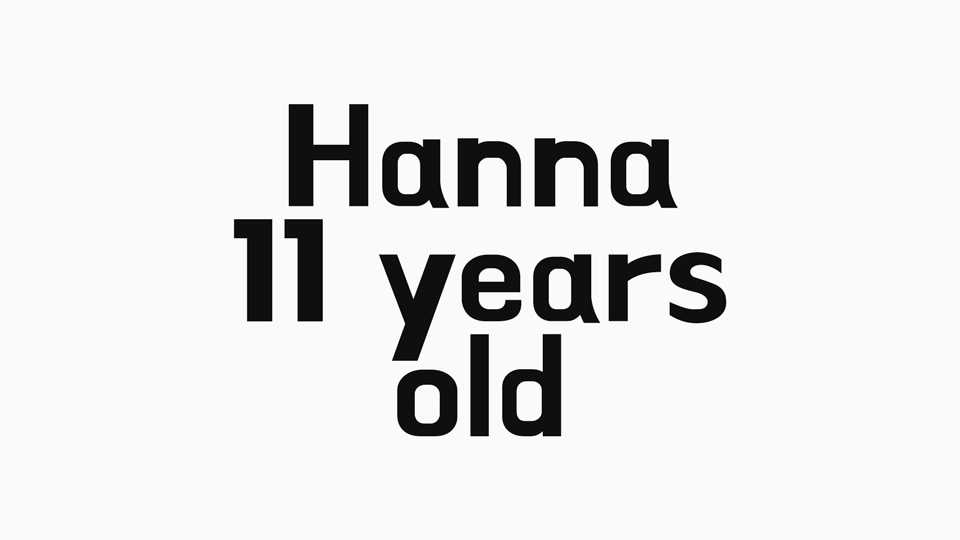
Download Hanna 11 Years Old font, a fresh take on Hanna, which was modeled after the hand-cut acrylic characters seen on typical Korean signboards in the 1960s and the 1970s.
Designer: Woowa Brothers